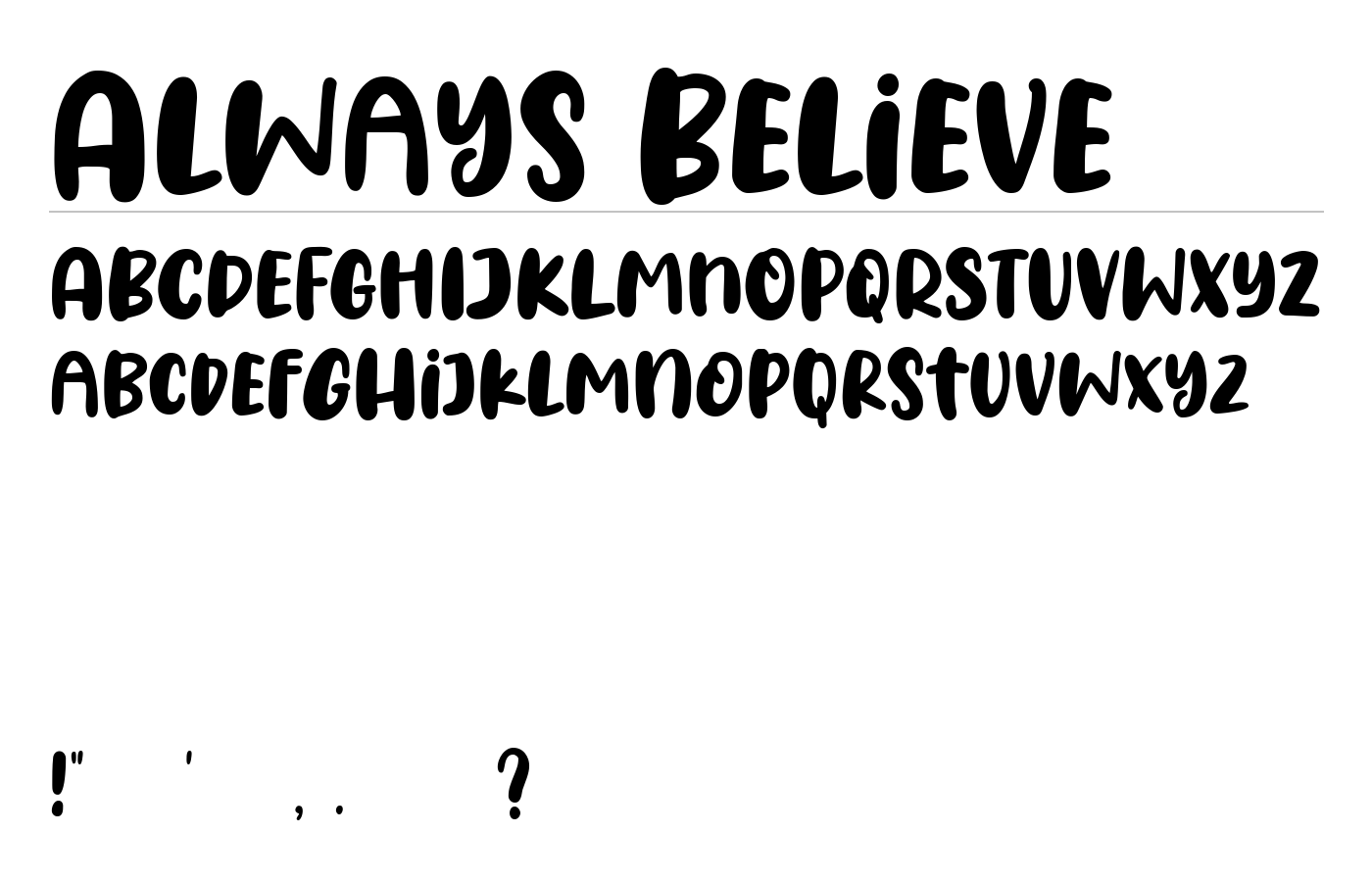
Always Believe is a playful and friendly handwritten sans serif font with rounded, bold strokes that give it a warm and approachable feel. Its casual, slightly irregular letterforms make it perfect for branding, children’s materials, and any design needing a cheerful, informal touch. This font works well in headlines and short text where a lively, personal vibe is desired.
Always Believe Font
About Always Believe Font
| Font family | Always Believe Font |
| Designer | AFS Olivetype |